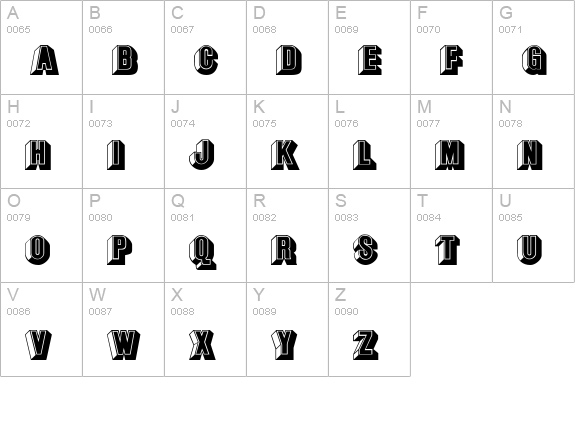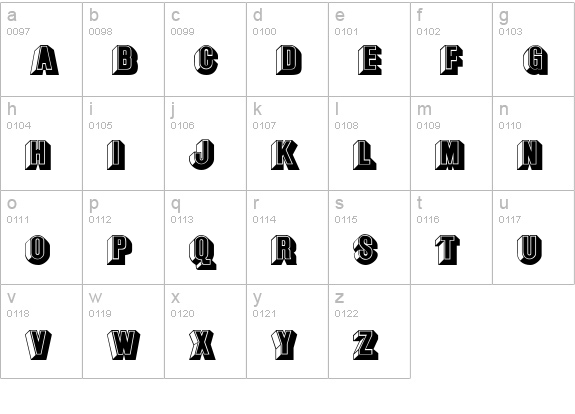
SavannahfatsPlain-Normal Font Details
SavannahfatsPlain-Normal is the standard, neutral variant in the SavannahfatsPlain typeface family \xE2\x80\x94 well suited to general body text, paragraphs, and standard typographic work.
SavannahfatsPlain-Normal font is a versatile and elegant typeface that exudes a timeless appeal. Its clean lines and balanced proportions make it suitable for a wide range of design projects, from logo designs to website layouts and everything in between. This font offers a classic and sophisticated look, perfect for adding a touch of elegance to any creative endeavor. With its smooth curves and refined letterforms, SavannahfatsPlain-Normal font is sure to capture attention and leave a lasting impression. What sets this font apart is its accessibility - it is freely available to download at FontsMarket.com. This means that designers, artists, and anyone in need of a high-quality font can easily access and utilize SavannahfatsPlain-Normal font in their projects without having to worry about any financial constraints. Whether you're a professional designer or an aspiring creative, SavannahfatsPlain-Normal font is a valuable addition to your font library. Its versatility, style, and availability make it a go-to choice for various design applications. Don't miss out on the opportunity to enhance your projects with this exceptional font - download SavannahfatsPlain-Normal font today at FontsMarket.com and unleash your creativity.